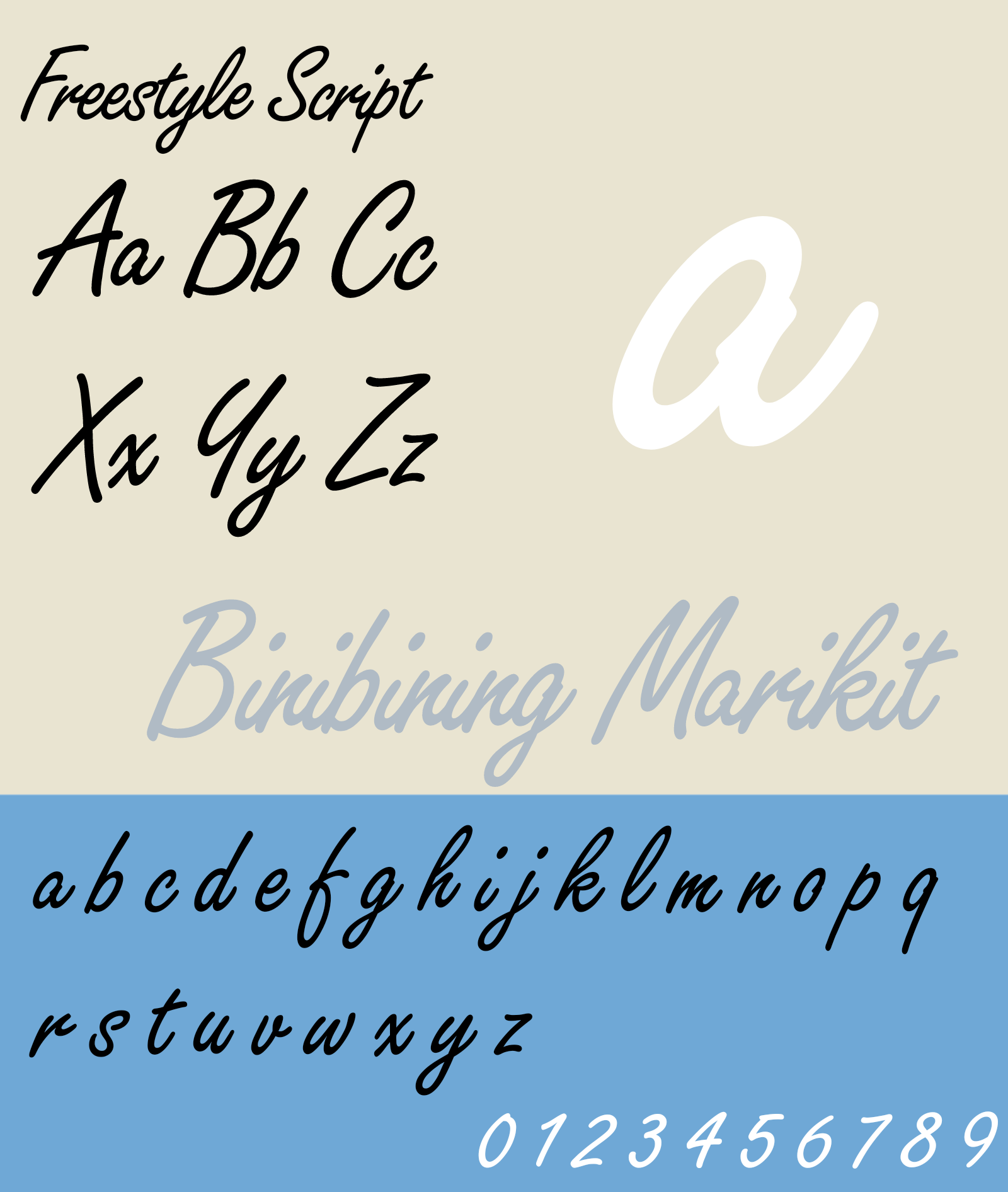
Freestyle Script Font
Freestyle Script Font - Freestyle script font comes with uppercase, lowercase letters, numbers, ligature, punctuation, and. Web freestyle script font is a famous script typeface with a unique handwritten style. View sample text, character map, user rating and review for freestyle script regular. Its capitals can be used. Freestyle script font has been downloaded (333586) times. Web freestyle script is the work of designer martin wait. Download freestyle script font free! Web download freestyle script regular for free.
Web download freestyle script regular for free. View sample text, character map, user rating and review for freestyle script regular. Its capitals can be used. Web freestyle script is the work of designer martin wait. Freestyle script font has been downloaded (333586) times. Freestyle script font comes with uppercase, lowercase letters, numbers, ligature, punctuation, and. Download freestyle script font free! Web freestyle script font is a famous script typeface with a unique handwritten style.
View sample text, character map, user rating and review for freestyle script regular. Freestyle script font has been downloaded (333586) times. Its capitals can be used. Freestyle script font comes with uppercase, lowercase letters, numbers, ligature, punctuation, and. Web freestyle script is the work of designer martin wait. Web download freestyle script regular for free. Download freestyle script font free! Web freestyle script font is a famous script typeface with a unique handwritten style.
Web freestyle script is the work of designer martin wait. Freestyle script font comes with uppercase, lowercase letters, numbers, ligature, punctuation, and. Freestyle script font has been downloaded (333586) times. Web freestyle script font is a famous script typeface with a unique handwritten style. Download freestyle script font free!
Its capitals can be used. Freestyle script font comes with uppercase, lowercase letters, numbers, ligature, punctuation, and. Web freestyle script font is a famous script typeface with a unique handwritten style. Web download freestyle script regular for free. Download freestyle script font free!
Freestyle script font has been downloaded (333586) times. Web freestyle script font is a famous script typeface with a unique handwritten style. Freestyle script font comes with uppercase, lowercase letters, numbers, ligature, punctuation, and. Web download freestyle script regular for free. Its capitals can be used.
Freestyle Script Font
Web freestyle script font is a famous script typeface with a unique handwritten style. Freestyle script font has been downloaded (333586) times. Web freestyle script is the work of designer martin wait. Web download freestyle script regular for free. Freestyle script font comes with uppercase, lowercase letters, numbers, ligature, punctuation, and.
Freestyle script font has been downloaded (333586) times. Web freestyle script font is a famous script typeface with a unique handwritten style. Freestyle script font comes with uppercase, lowercase letters, numbers, ligature, punctuation, and. Web freestyle script is the work of designer martin wait. View sample text, character map, user rating and review for freestyle script regular.
Web freestyle script is the work of designer martin wait. Web freestyle script font is a famous script typeface with a unique handwritten style. Freestyle script font comes with uppercase, lowercase letters, numbers, ligature, punctuation, and. Web download freestyle script regular for free. View sample text, character map, user rating and review for freestyle script regular.
Freestyle Script Desktop Font & WebFont YouWorkForThem
Its capitals can be used. View sample text, character map, user rating and review for freestyle script regular. Download freestyle script font free! Freestyle script font comes with uppercase, lowercase letters, numbers, ligature, punctuation, and. Web download freestyle script regular for free.
Freestyle Script SH Regular Fonts
Web freestyle script is the work of designer martin wait. Web freestyle script font is a famous script typeface with a unique handwritten style. Freestyle script font comes with uppercase, lowercase letters, numbers, ligature, punctuation, and. Its capitals can be used. Web download freestyle script regular for free.
Freestyle Script Com Bold Fonts
Web freestyle script is the work of designer martin wait. Freestyle script font has been downloaded (333586) times. Download freestyle script font free! View sample text, character map, user rating and review for freestyle script regular. Web download freestyle script regular for free.
Download free Freestyle Script Bold Plain font
Freestyle script font has been downloaded (333586) times. Freestyle script font comes with uppercase, lowercase letters, numbers, ligature, punctuation, and. Download freestyle script font free! Web freestyle script is the work of designer martin wait. Its capitals can be used.
Download Freestyle Script Font Free!
Web download freestyle script regular for free. Web freestyle script font is a famous script typeface with a unique handwritten style. View sample text, character map, user rating and review for freestyle script regular. Its capitals can be used.
Web Freestyle Script Is The Work Of Designer Martin Wait.
Freestyle script font comes with uppercase, lowercase letters, numbers, ligature, punctuation, and. Freestyle script font has been downloaded (333586) times.